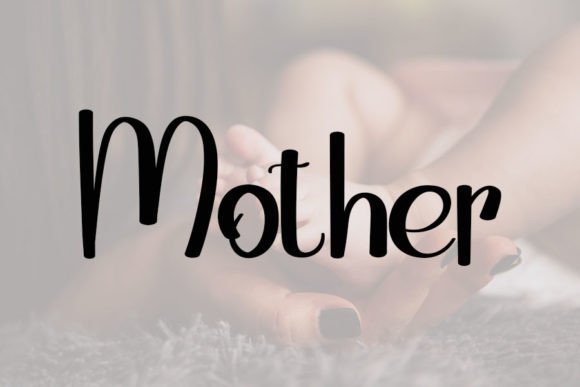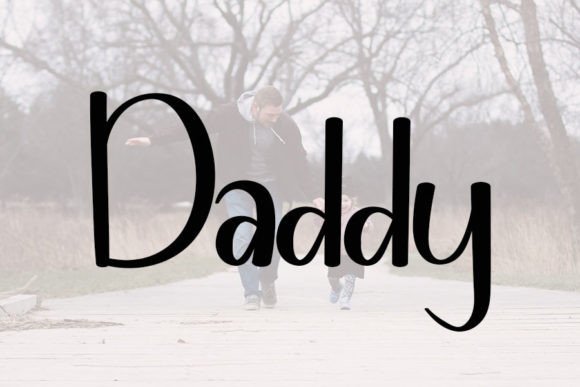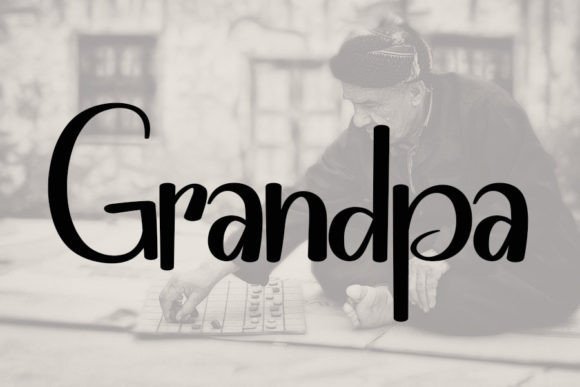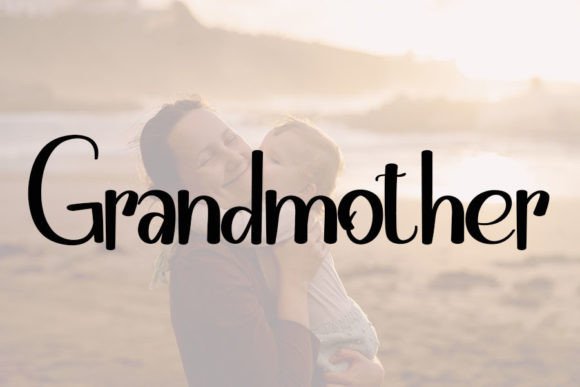
Somebody Font
About Somebody Font
**Somebody**: *Where Neat Beauty Meets Timeless Elegance*
Somebody isn’t just a font; it’s a seamless blend of neat beauty and timeless elegance, meticulously designed to enhance your favorite projects. Its elegant touch brings forth an air of sophistication that’s perfect for a wide range of creative endeavors.
What sets Somebody apart is its ability to combine a sense of neatness with a timeless and elegant style. The font’s beautifully crafted characters exude a delicate handwritten charm that adds a layer of personal warmth to your projects. Whether you’re working on invitations, branding materials, social media graphics, or any other visual content, Somebody is the font that can effortlessly elevate your designs.
Somebody captivates with its distinct and timeless style, making it a font that transcends trends and remains eternally appealing. It’s a versatile choice for projects where you want to convey both neatness and timeless elegance.
In branding, Somebody brings an essence of sophistication and authenticity, making it an invaluable asset for logos and visual identities. It has the power to convey a brand’s refined character and values, connecting deeply with its target audience.
Invitations and stationery adorned with Somebody acquire a unique level of elegance, setting the stage for refined events and heartfelt correspondence. Social media posts featuring Somebody radiate style and grace, captivating your audience and making your content truly exceptional.
Somebody’s adaptability is one of its most remarkable qualities. It can transition seamlessly from a formal and polished tone to a more casual and friendly one, making it suitable for various creative projects. Its ability to span different styles and themes ensures that it remains a cherished choice for designers and creators across diverse industries.
In summary, Somebody is more than just a font; it’s a design asset that effortlessly combines neat beauty with timeless elegance. Its unique blend of delicate characters and classic charm positions it as an indispensable tool for anyone looking to add a touch of sophistication to their visual communication. Fall in love with the timeless beauty of Somebody, and watch your creative projects flourish with distinction and grace.